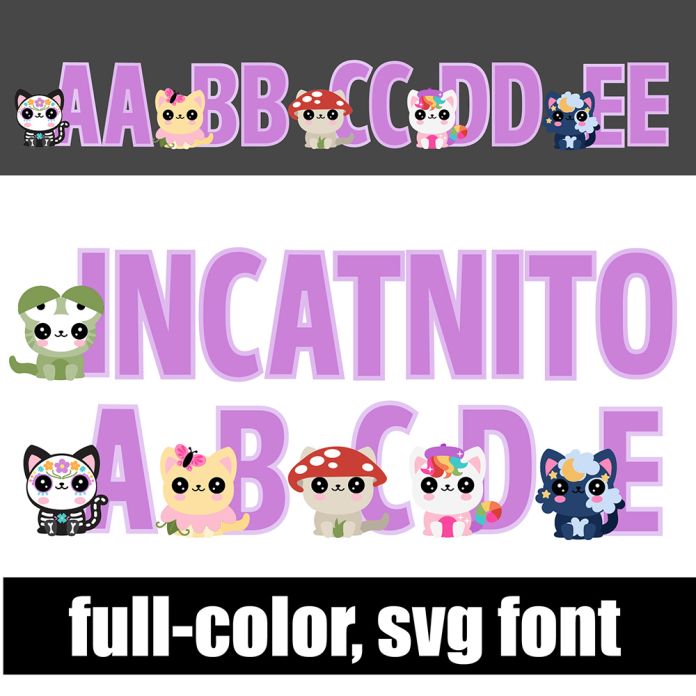
This full-color font features cats in costumes on the uppercase and a lowercase without. There is an alt case w/ additional colors you can access through your system or Silhouette's glyph map. This font works best for titles, displays, posters and more. Please note color fonts will show as black in non compatible programs. This font type is compatible with Silhouette Studio.